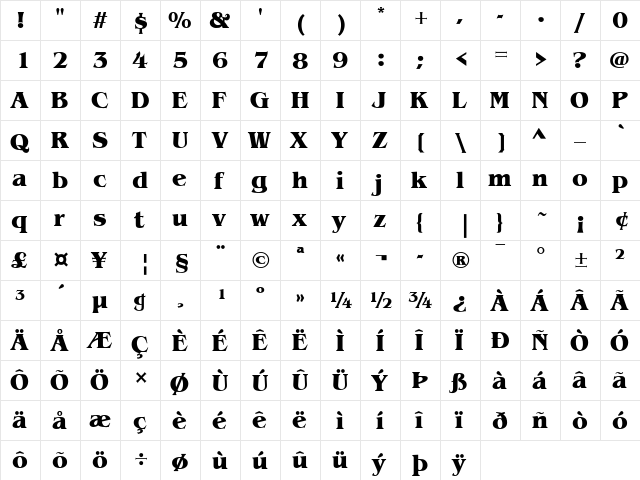
Benguiat Bold Font Preview
Benguiat Bold
Benguiat Bold Font Details
Design Context for Benguiat Typeface
Benguiat takes a measured approach to typography — its balanced proportions and neutral character make it a reliable workhorse for both digital and print work. Its bold stroke weight gives it real presence on the page.
Pro Tip: Use Benguiat in both headline and body roles to test its range before committing to a single application.